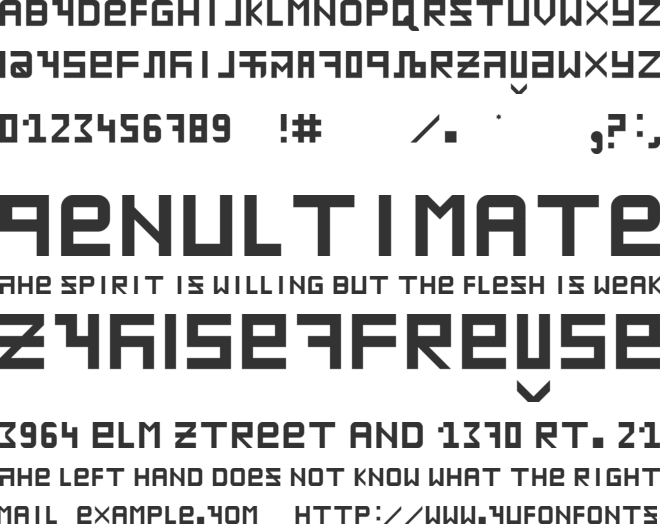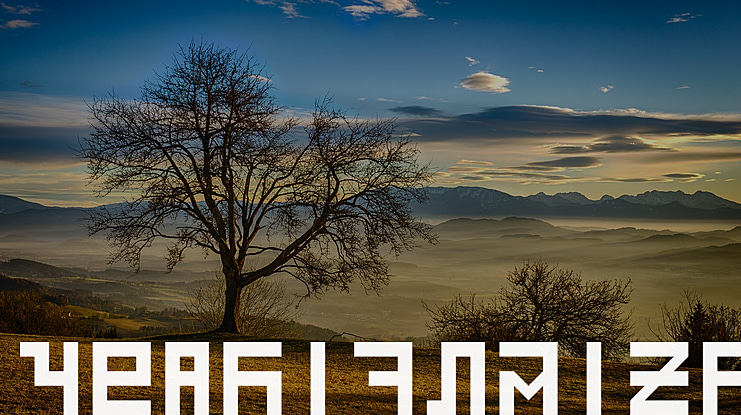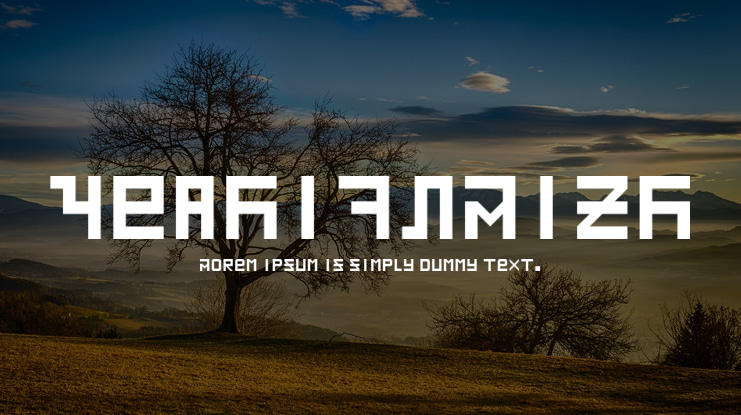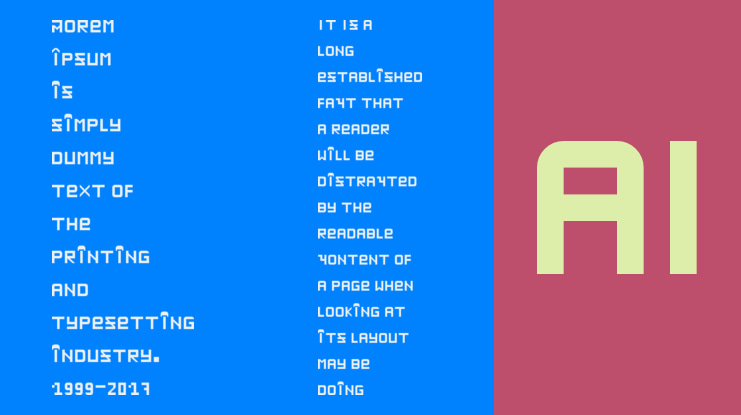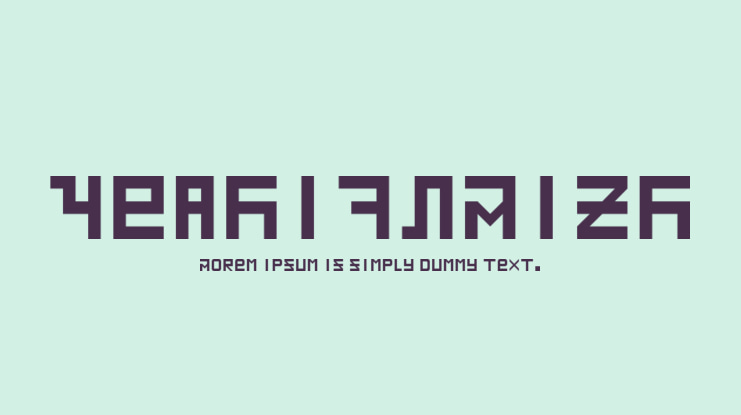
CEMHINGLISH Font
annumbbs
simple and cool with some words replaced because in hindi s and c both are same while in english c is pronounced as k and s ..... so here s and c are replaced by the hindi sounds and some extra sounds are added ...